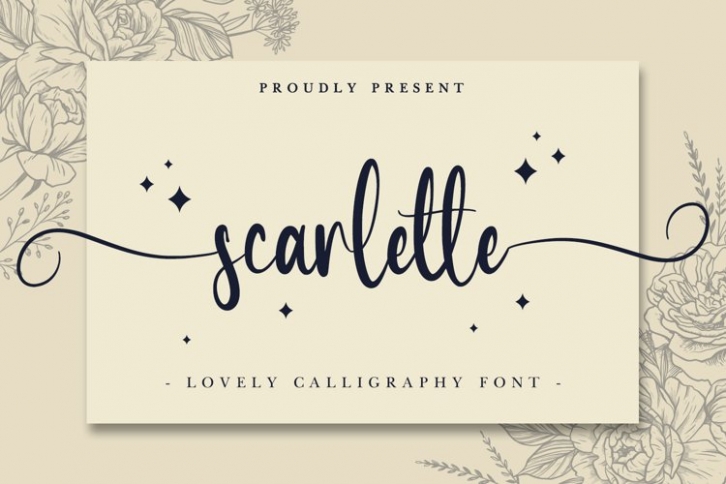
Scarlette is a trendy and unique font with an authentic style. It was designed by plusstore and it's a great choice for creative people who need such a font. It was released on January 22, 2022 and the file size is 9.2 MB. Scarlette will add an organic vibe to any design idea!